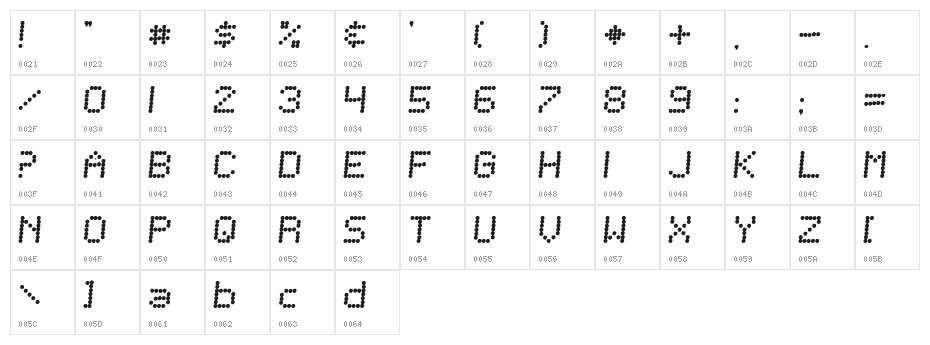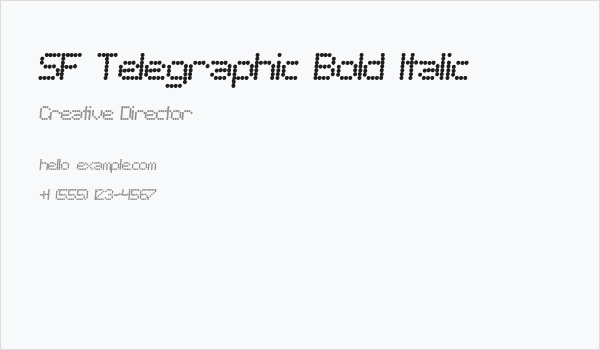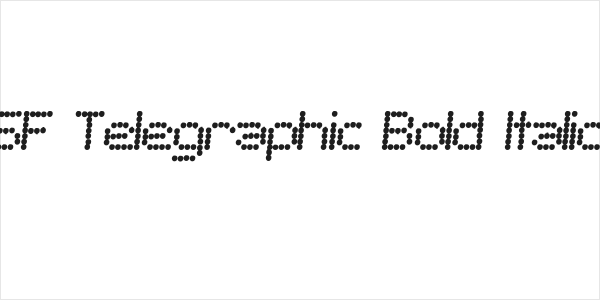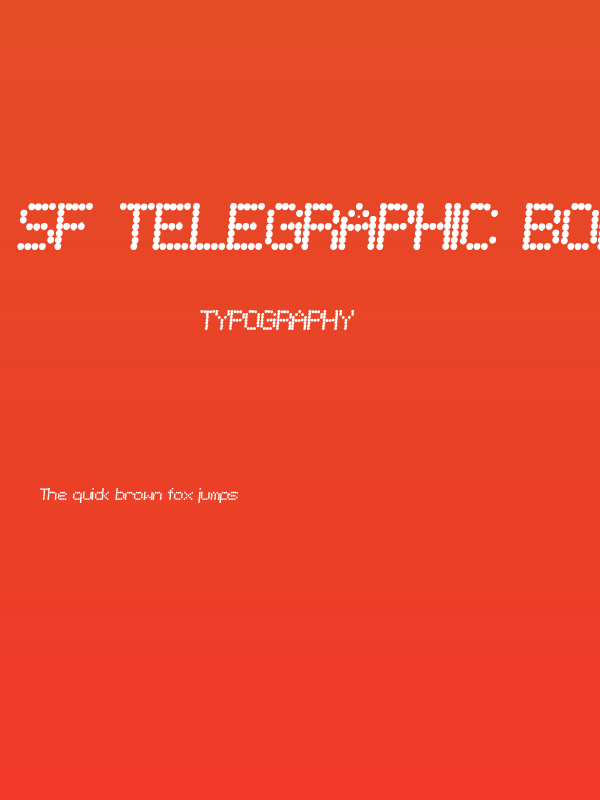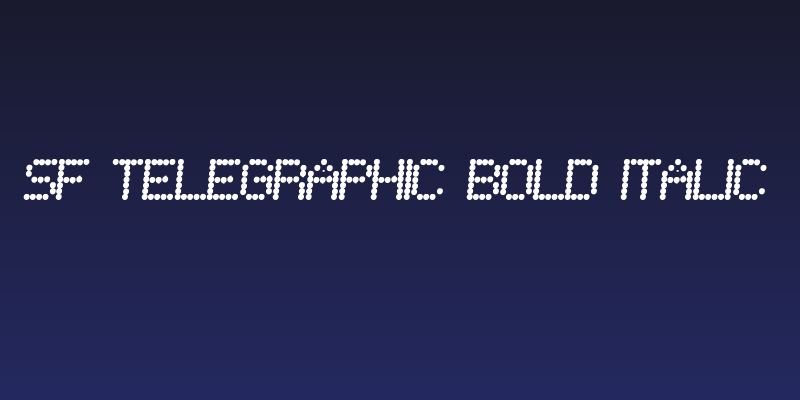
SF Telegraphic Bold Italic Font
SF Telegraphic Bold Italic Description
This font features a unique dot-matrix style, reminiscent of old telegraphic or digital displays. Each character is composed of a series of evenly spaced dots, creating a pixelated effect that is both retro and modern. The bold and italicized design adds a dynamic and energetic feel, making it stand out in any design project. The uppercase and lowercase letters, along with numbers and special characters, maintain a consistent dot pattern, ensuring readability while offering a distinctive aesthetic. This font is perfect for projects that aim to capture a vintage digital vibe or for use in creative, tech-inspired designs.
| Overall Style | Retro, Modern |
| Use Case | Headlines, Logos, Creative Displays |
| Proposed Projects | Ideal for tech-themed designs, retro digital displays, creative posters, and unique branding projects. |